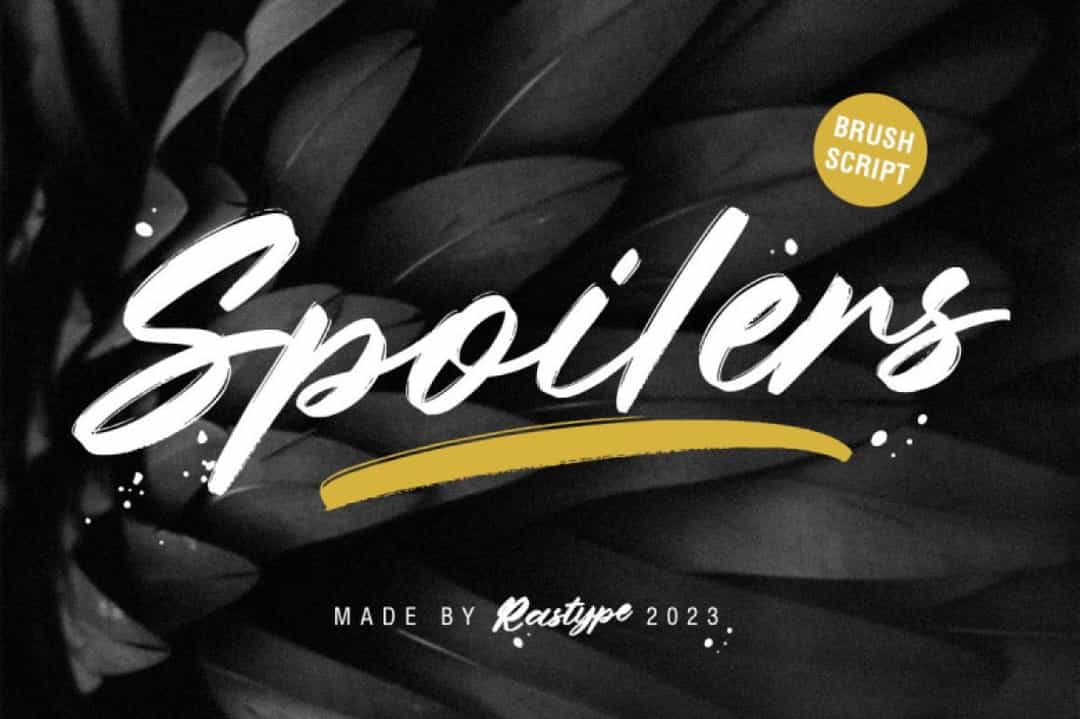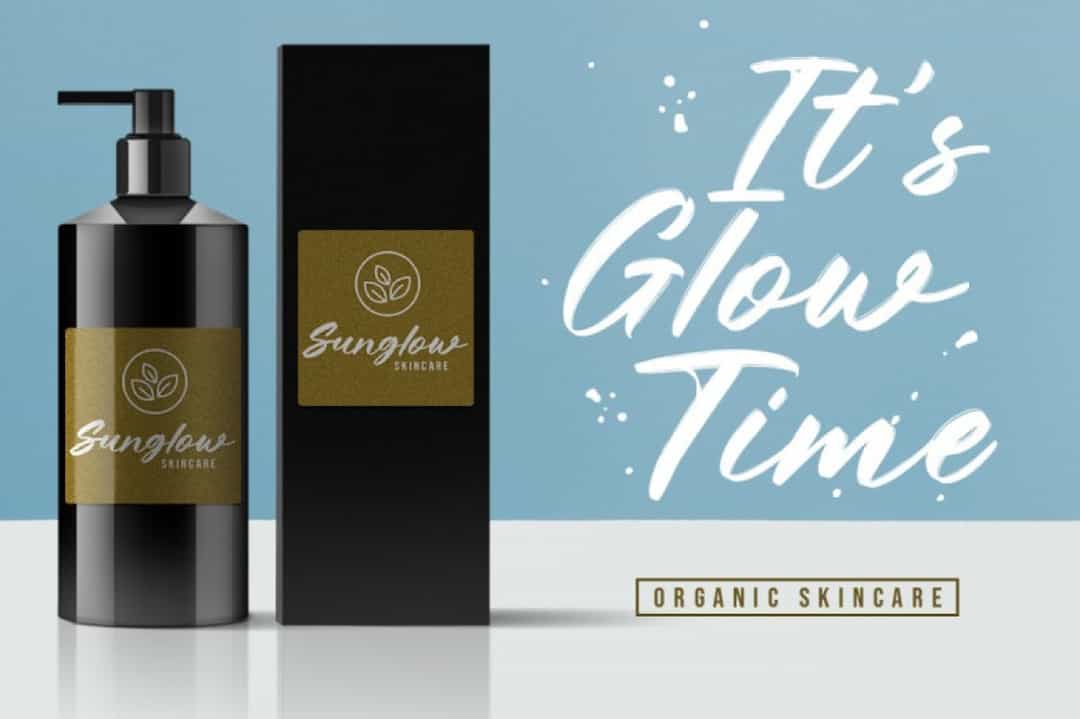
Spoilers is an immersive brush typeface featuring natural handcraft, underlines and ligatures to add intrigue and dimension to your designs. Perfect for invitations, clothing books, titles for books and stationery designs as well as logos, branding messages greeting cards posters t-shirts posters packaging designs etc.